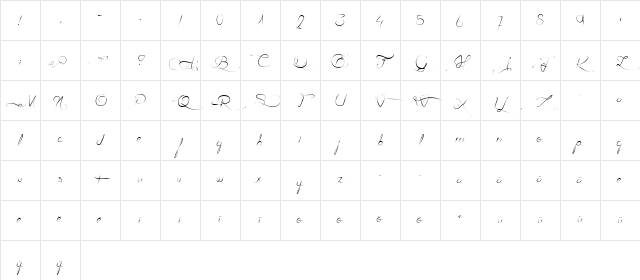
Complete Ail et Fines Herbes Italic glyph index. Displaying only characters natively supported by Ail et Fines Herbes Italic font.
Ail et Fines Herbes is a composed and adaptable typeface that performs quietly and consistently across a wide range of design contexts. The slanted form adds forward momentum and visual energy.
Pro Tip: Use Ail et Fines Herbes for emphasis, pull quotes, and subheadings where its slanted energy can add rhythm to the layout.